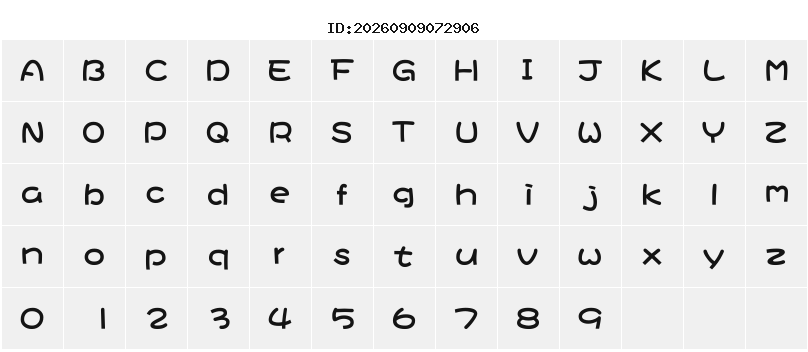
DFPFangYuanW7-B5 Preview
• Font Name: DFPFangYuanW7-B5
• Full Font Name: DFPFangYuanW7-B5
• PostScript Name: DFFangYuan-W7-WINP-BF
• Character Count: 16904
About DFPFangYuanW7-B5.ttf
DFPFangYuanW7-B5.ttf is a modern, elegant sans-serif font designed for ultimate readability and visual harmony. Perfect for branding, headlines, web design, and print materials.